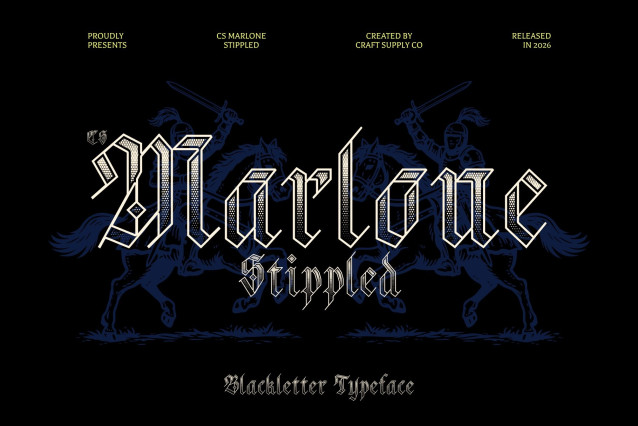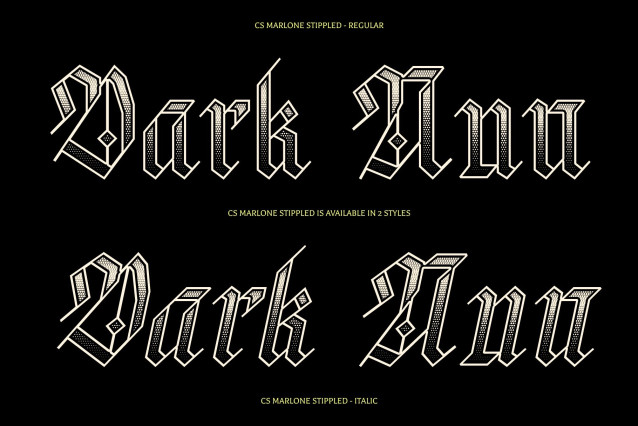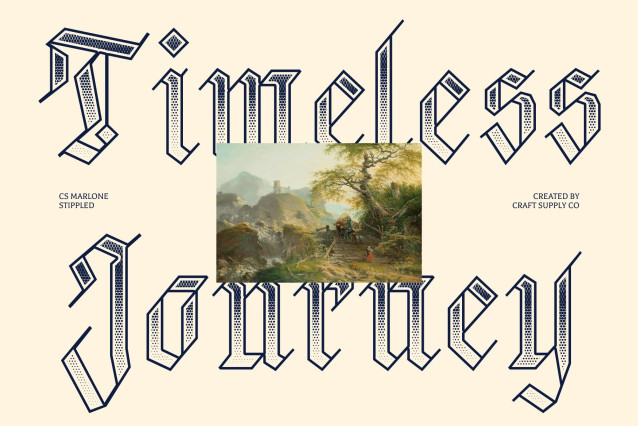
CS Marlone Stippled Font
CS Marlone Stippled – A Bold Revival of Medieval Elegance
Classic Blackletter Display with a Strong Presence
This font is a striking blackletter display font inspired by the intricate craftsmanship of medieval calligraphy. Its bold, sharp letterforms convey strength, authority, and timeless sophistication, making it perfect for designs that demand a commanding historical aesthetic.
Sharp Decorative Forms with Gothic Character
Dramatic strokes and ornate details capture the essence of traditional blackletter typography. The refined yet decorative shapes create a rich vintage and gothic appeal, delivering a powerful visual impact while maintaining elegance and readability in display settings.
Stippled Texture for Antique Depth
Enhanced with a dense stippled texture, the font gains a handcrafted, inked appearance reminiscent of classic printmaking and aged manuscripts. This dotwork effect adds depth, character, and a tactile vintage feel that amplifies its old-world charm.